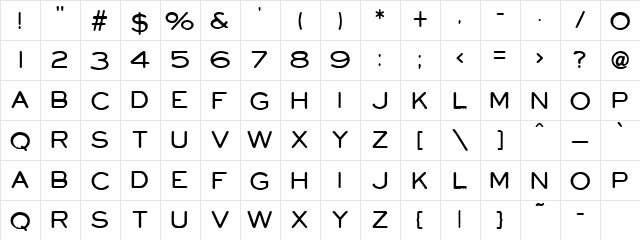
Powell and Geary Regular
| Foundry | S. John Ross |
| Designer | S. John Ross |
Design Context for Powell and Geary Typeface
Powell and Geary is a composed and adaptable typeface that performs quietly and consistently across a wide range of design contexts.